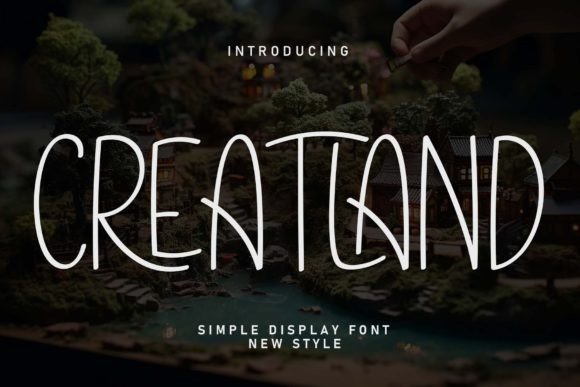
The Perfect Font for Your Next Design Project: Creatland
I still remember the frustration of working on a design project, hours spent searching for the perfect font, only to end up with something that just didn’t feel right. My client wanted a friendly, approachable vibe, but everything I tried seemed either too formal or too quirky. That’s when I stumbled upon Creatland, a sweet and friendly handwritten font that instantly clicked. Its natural and unique style made it incredibly fitting for a large pool of designs. The only limit, as they say, is your imagination!
An Honest Review of Creatland
- ✨ Unique and Friendly Style: Creatland’s handwritten style is both unique and friendly, making it perfect for designs that need a personal touch.
- ✅ Highly Versatile: This font can be used for a wide range of projects, from branding and advertising to packaging and web design.
- 💫 Elegant yet Casual: Creatland strikes the perfect balance between elegance and casualness, making it suitable for both formal and informal designs.
While Creatland is an amazing font, there are a few things to keep in mind:
- ⚠️ Legibility at Small Sizes: Like many handwritten fonts, Creatland can be a bit tricky to read at very small sizes. It’s best used at larger sizes or for headlines.
- 🤔 Limited Formality: Due to its friendly and casual nature, Creatland might not be the best choice for very formal or corporate designs.
The Backstory of Creatland
Creatland was designed with the creative hobbyist and small business owner in mind. The designer wanted to create a font that was both friendly and versatile, perfect for a wide range of projects. Inspired by everyday handwritten notes and letters, Creatland brings a touch of warmth and personality to any design.
Q: Is Creatland suitable for body text?
A: While Creatland is beautiful, it’s best used for headlines or short paragraphs due to its unique handwritten style. For longer body text, a more traditional font might be more readable.
Q: Does Creatland support OpenType features?
A: Yes, Creatland supports OpenType features, allowing you to access a range of glyphs and stylistic alternates to customize your text.